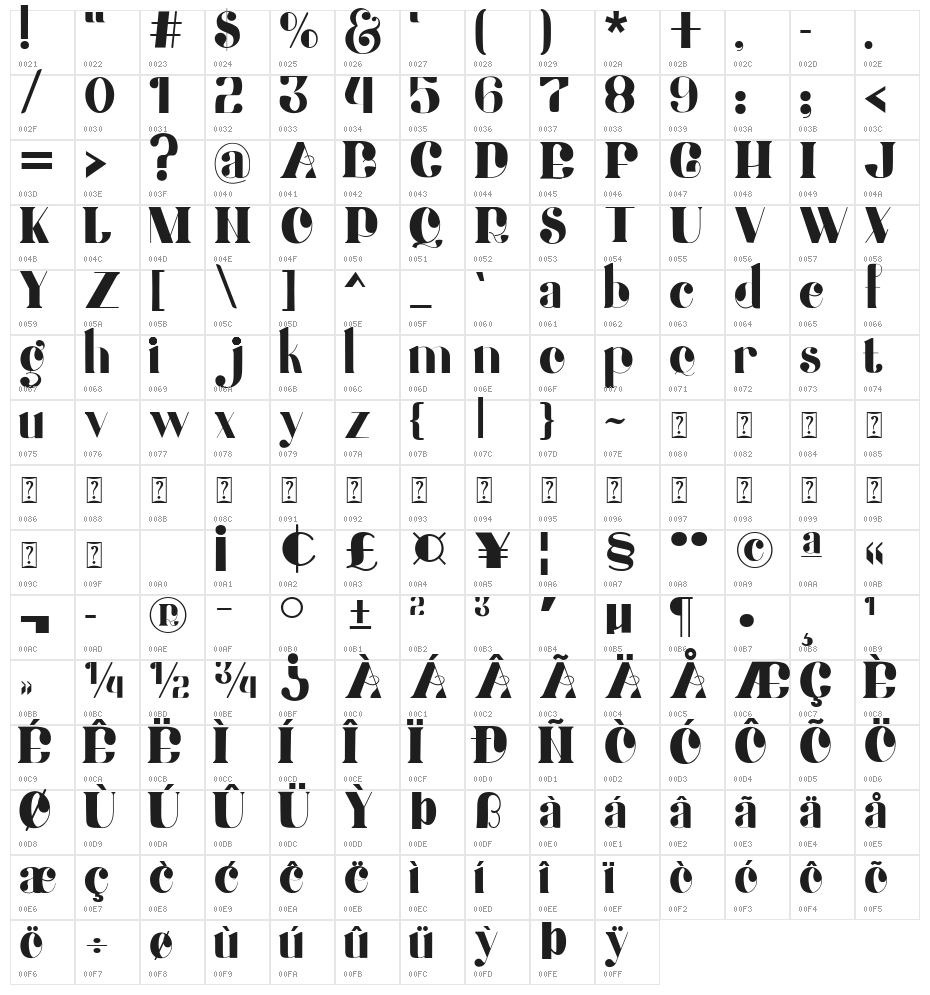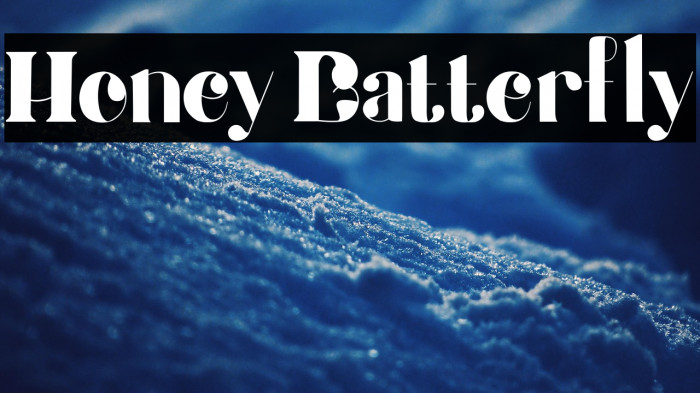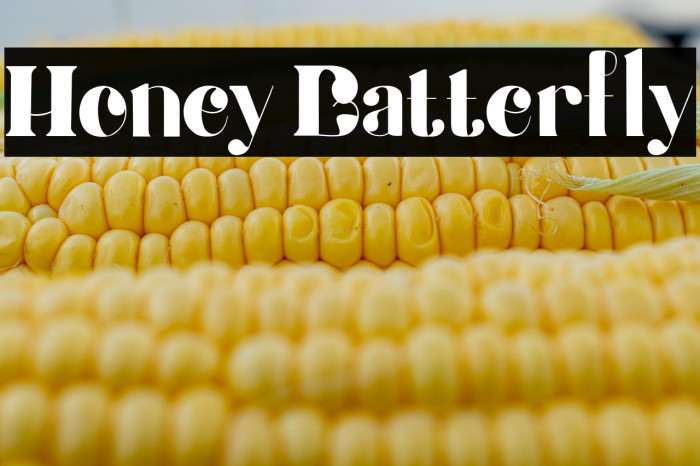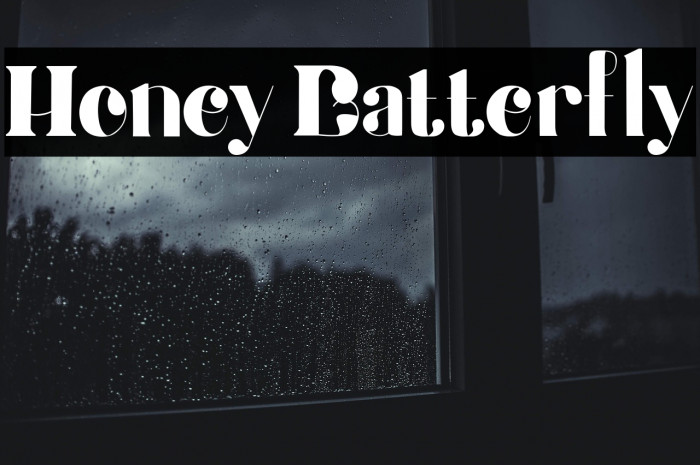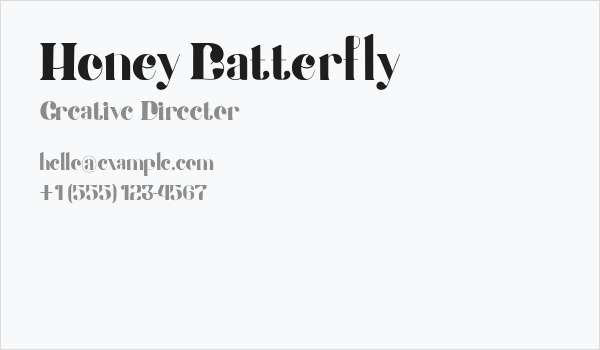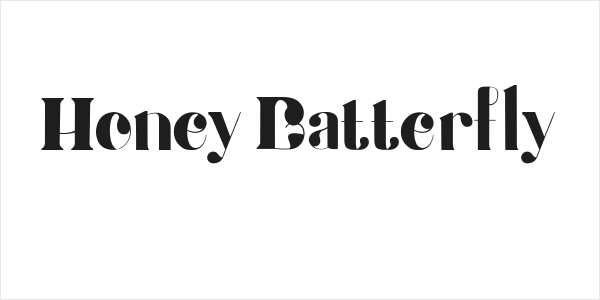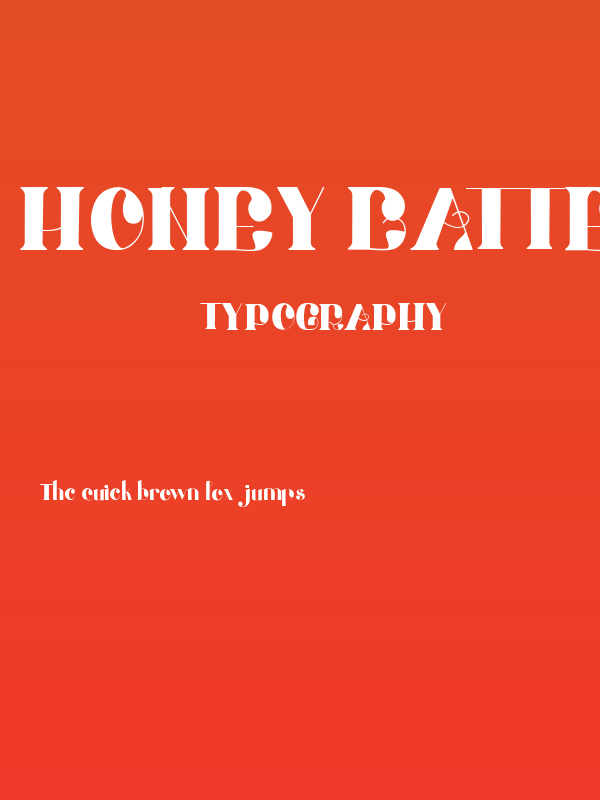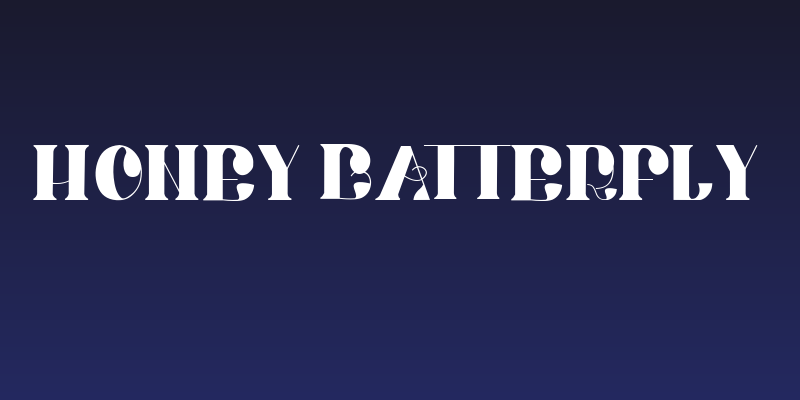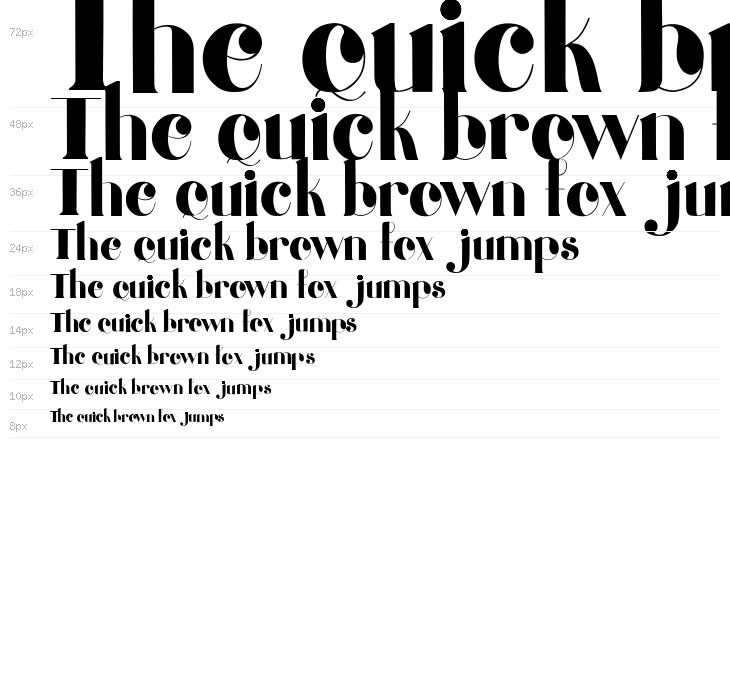
Honey Batterfly Font
Honey Batterfly Description
This font exhibits a unique blend of boldness and elegance, characterized by thick, dramatic strokes and subtle curves. The uppercase letters are particularly striking, with a strong presence and a touch of flair in their design. The lowercase letters maintain a consistent style, offering a harmonious balance between the bold and the delicate. Numbers and special characters are crafted with the same attention to detail, ensuring a cohesive look across all elements. The font's overall appearance is both modern and decorative, making it suitable for a variety of creative applications.